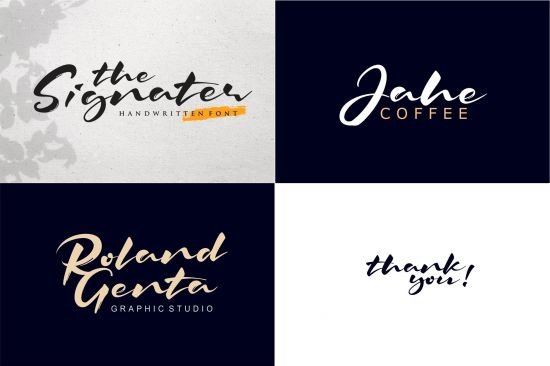
The Signater is an Bold handwritten font with natural look and bold taste.
The Signater is perfect for branding projects, logo, wedding designs, social media posts, advertisements, product packaging, product designs, label, photography, watermark, invitation, stationery and any projects that need handwriting taste.